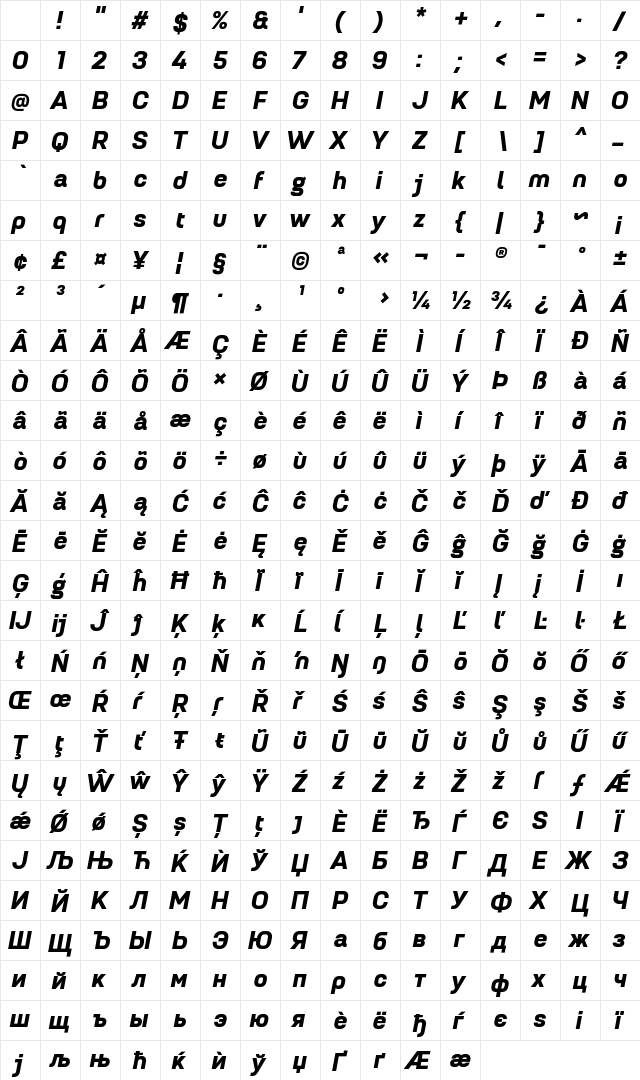
Complete Petrov Sans ExtraBold Italic Regular glyph index. Displaying only characters natively supported by Petrov Sans ExtraBold Italic Regular font.
Petrov Sans ExtraBold Italic is a composed and adaptable typeface that performs quietly and consistently across a wide range of design contexts. The slanted form adds forward momentum and visual energy. Its bold stroke weight gives it real presence on the page.
Pro Tip: Use Petrov Sans ExtraBold Italic for emphasis, pull quotes, and subheadings where its slanted energy can add rhythm to the layout.